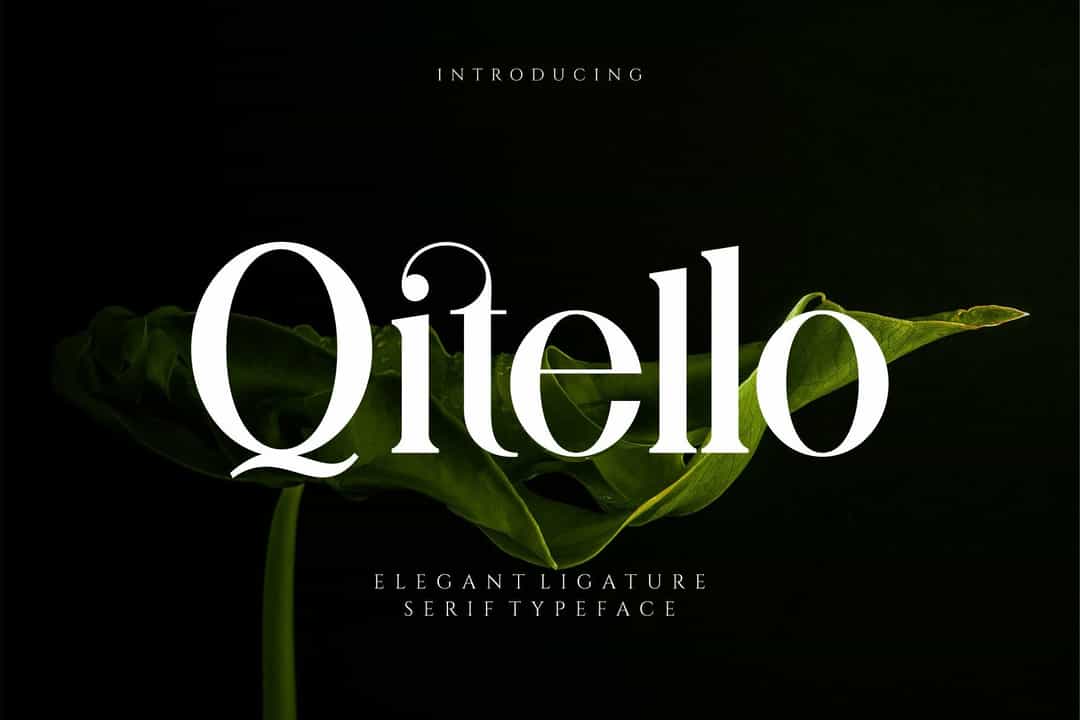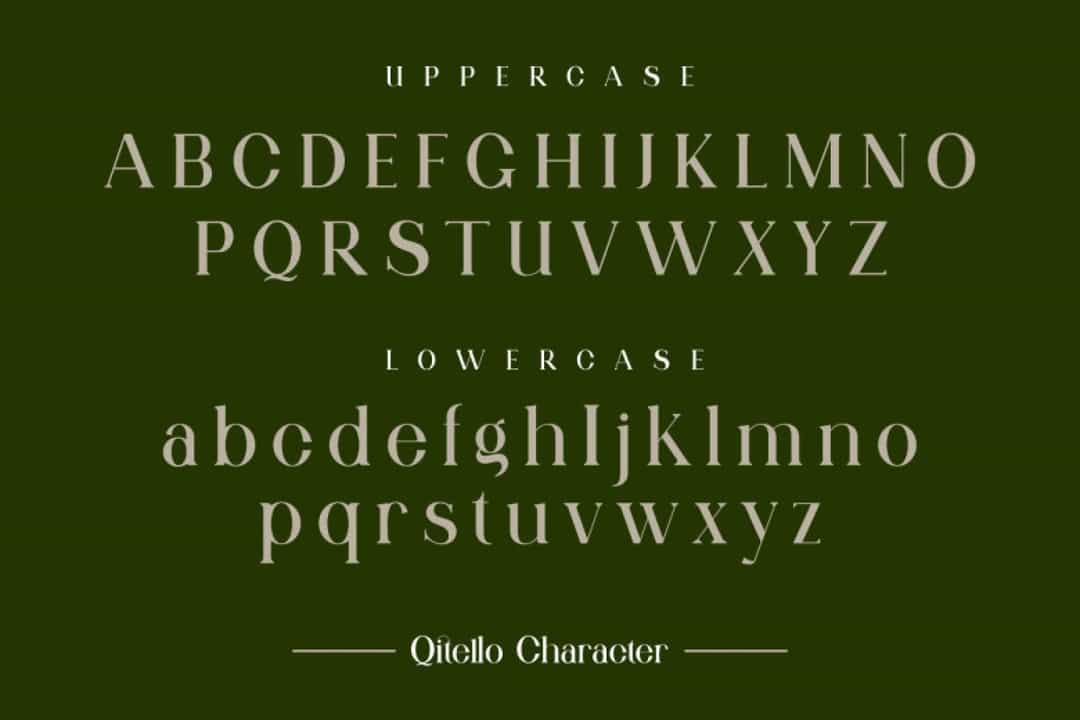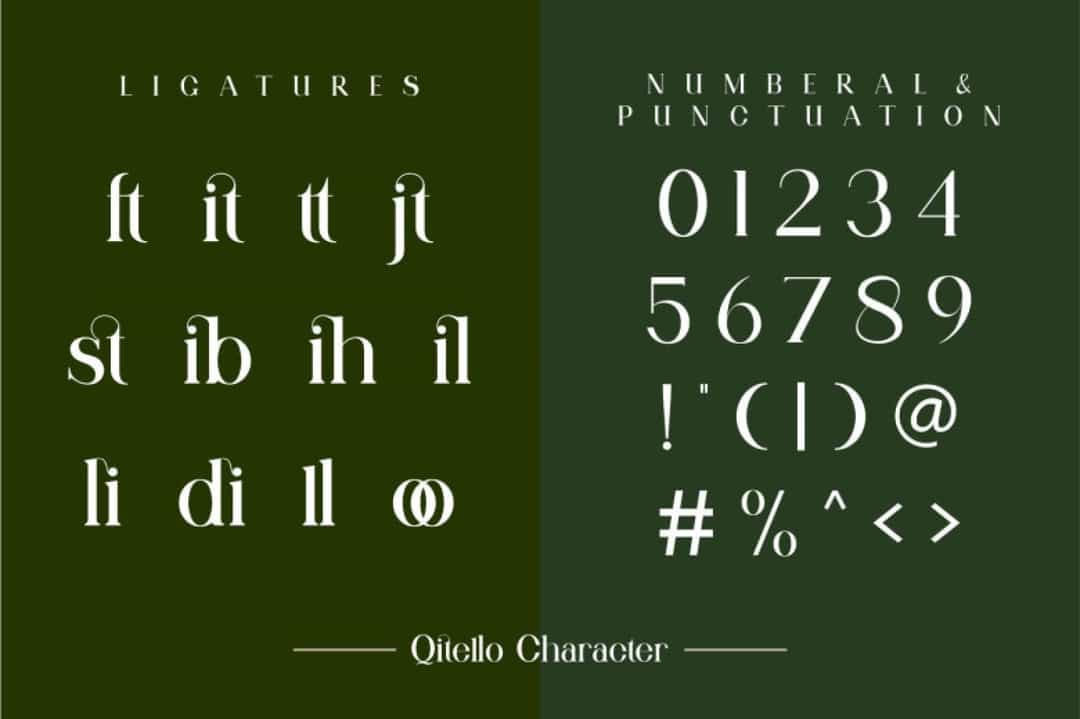
Qitello can be described as an elegant yet confident serif font that exudes bold confidence and assertive elegance. Easily integrated with various designs and projects, incorporate Qitello into your creative ideas to witness how they take form!